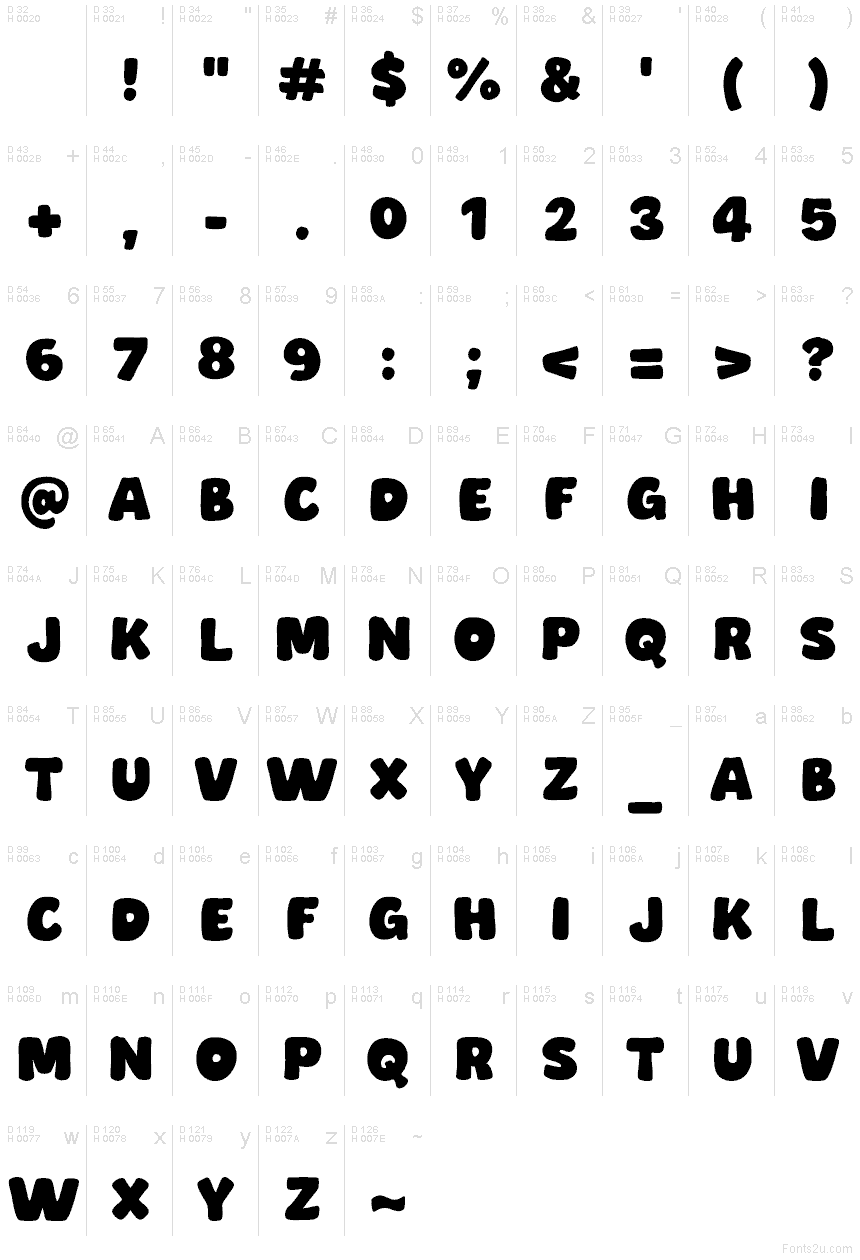
Small Cake
Small Cake font by MJType (Muhamad Junaid) is a free cartoon display typeface that looks like it’s been piped from a frosting bag—soft, rounded, and deliciously bold. The letters are chunky and slightly wobbly in a charming way, giving headlines a hand-formed, bouncy rhythm that grabs attention without feeling shouty. The inky black shapes feel dense and pillowy at the same time, so even a single word feels like a logo.
Using Small Cake, this free font shines on kids’ book covers, birthday invitations, snack packaging, game interfaces, classroom posters, and playful social posts. Its thick strokes stay readable at smaller sizes but really come to life when you push it big and loud. Pair this gooey cartoon style with a clean geometric sans for body text to keep your layouts fun yet readable.